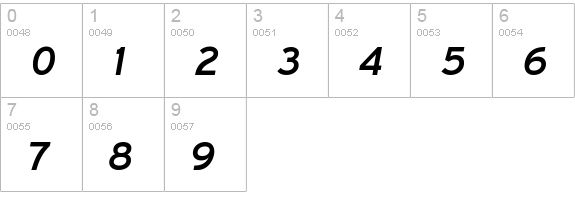
Expressway Sb Italic Font Details
Expressway Sb Italic is a distinctive, italic variant in the Expressway typeface family \xE2\x80\x94 well suited to design and typography projects.
Expressway Sb Italic font is a sleek and modern typeface that exudes elegance and sophistication. Its italicized style adds a touch of flair and dynamism to any design project. The font features clean lines and a contemporary feel, making it perfect for a wide range of applications, from branding to editorial design. What sets Expressway Sb Italic font apart is that it is completely free to use. Whether you're a professional designer looking to elevate your creative projects or a hobbyist seeking to add a stylish touch to your personal endeavors, this font is the perfect choice. You can freely download Expressway Sb Italic font at FontsMarket.com and start using it in your designs today.